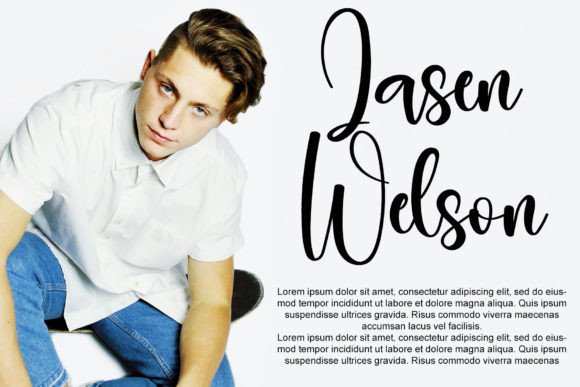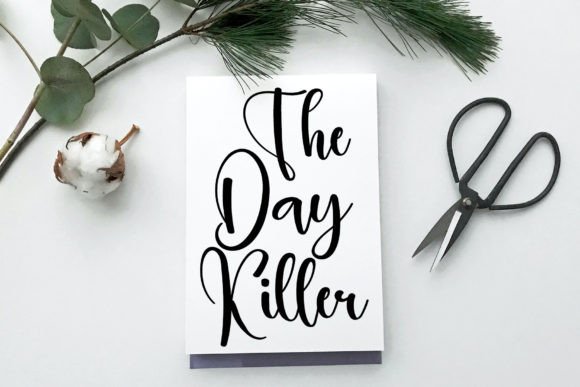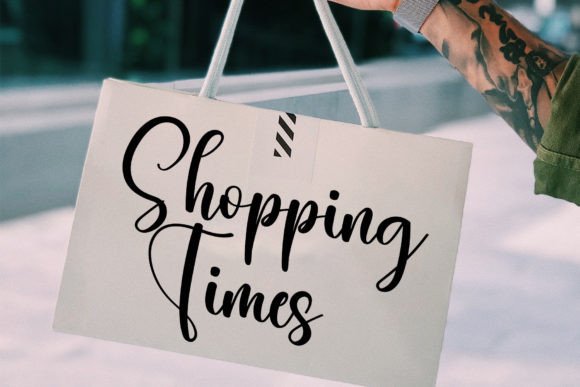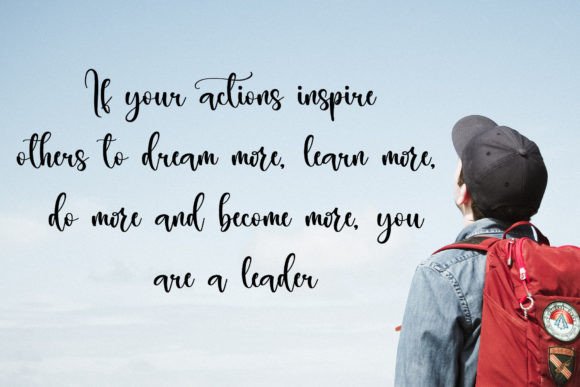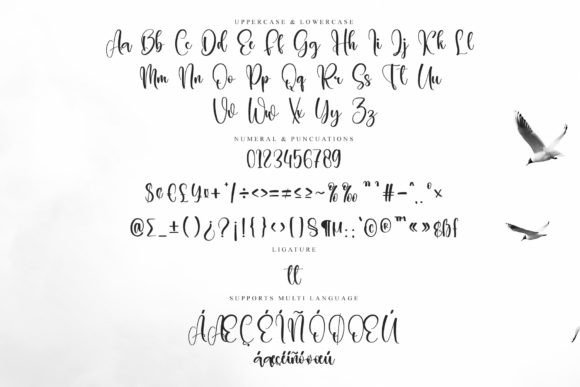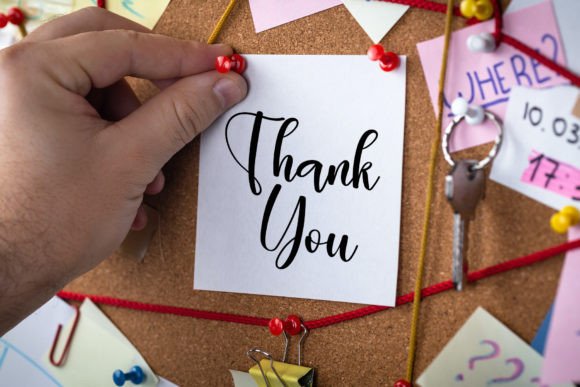
Introducing Alligator Font: The Sweet and Cursive Handwritten Font for Your Design Needs
Are you looking for a font that can add a touch of elegance and whimsy to your designs? Look no further than the Alligator Font! This sweet and cursive handwritten font is perfect for designers and crafters who want to create beautiful and eye-catching projects. In this article, we’ll dive into the features and benefits of the Alligator Font, and explore how you can use it to elevate your designs.
What is Alligator Font?
Alligator Font is a modern and elegant handwritten font that is designed to add a touch of sophistication and romance to your designs. Its gentle curves and flowing lines make it perfect for creating beautiful and feminine designs that will capture the attention of your audience. Whether you’re working on a branding project, a wedding invitation, or a fashion lookbook, the Alligator Font is sure to impress.
Features of Alligator Font
So, what makes the Alligator Font so special? Here are just a few of its key features:
- Sweet and cursive: The Alligator Font has a sweet and cursive design that is perfect for creating elegant and sophisticated designs.
- Handwritten: This font has a handwritten feel that gives it a personal and unique touch.
- Versatile: The Alligator Font can be used on a variety of design projects, from branding and logos to wedding invitations and greeting cards.
- Elegant and casual: This font strikes the perfect balance between elegance and casualness, making it perfect for designers who want to create designs that are both sophisticated and approachable.
How to Use Alligator Font in Your Designs
So, how can you use the Alligator Font in your designs? Here are a few ideas to get you started:
- Branding: Use the Alligator Font to create beautiful and elegant brand logos that will help your business stand out.
- Wedding designs: This font is perfect for creating beautiful wedding invitations, save-the-date cards, and other wedding stationery.
- Greeting cards: The Alligator Font is also great for creating greeting cards for special occasions, such as birthdays, anniversaries, and holidays.
- Fashion and beauty: Use this font to create stunning fashion lookbooks, marketing materials, and beauty branding.
Benefits of Using Alligator Font
So, why should you choose the Alligator Font for your designs? Here are just a few of the benefits of using this beautiful font:
- Unique and eye-catching: The Alligator Font is a unique and eye-catching font that will help your designs stand out from the crowd.
- Elegant and sophisticated: This font adds a touch of elegance and sophistication to any design, making it perfect for high-end brands and luxury products.
- Easy to read: The Alligator Font is easy to read, even in small sizes, making it perfect for use on a variety of design materials.
- Versatile: This font can be used on a wide range of design projects, from print materials to digital designs.
In conclusion, the Alligator Font is a beautiful and versatile font that is perfect for designers and crafters who want to create stunning and elegant designs. With its sweet and cursive design, handwritten feel, and elegant and casual vibe, this font is sure to impress. Whether you’re working on a branding project, a wedding invitation, or a fashion lookbook, the Alligator Font is a great choice. So why not give it a try and see how it can elevate your designs?